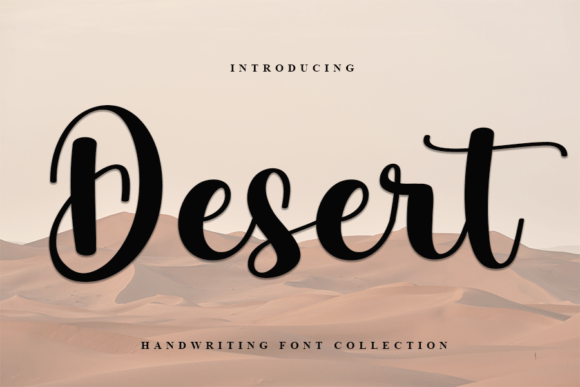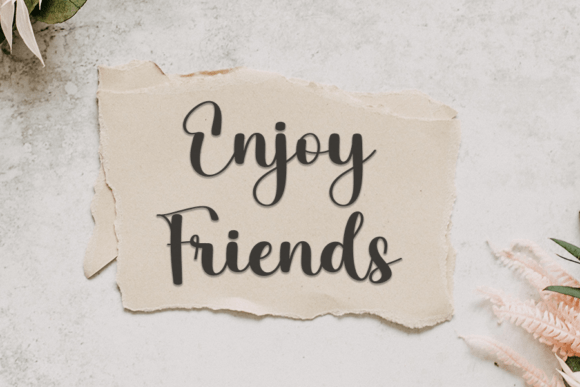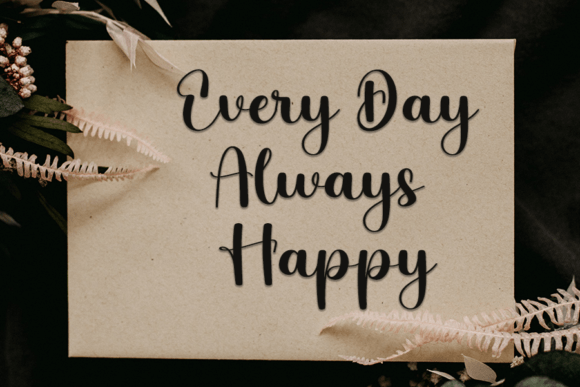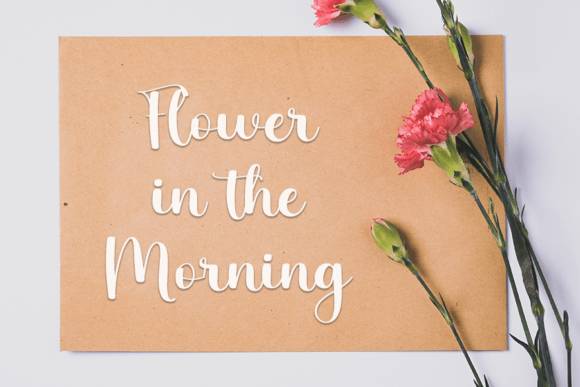
Desert Font
What Is Desert Font?
Desert is a delicate handwritten font designed to bring a cool, unique character to your work. Each letter has been thoughtfully crafted to balance elegance and readability, making this font stand out in any context.
Desert is incredibly versatile and adapts easily to many types of projects:
✅ Letters & Invitations: Perfect for adding a refined, personal touch to wedding invites, event announcements, and thank-you cards.
✅ Food Product Labels: Its clean, organic style suits handmade or artisanal products beautifully.
✅ Titles & Headlines: Use Desert to create captivating headers that grab attention without sacrificing clarity.
✅ Branding & Packaging: Elevate your brand image with a handwritten look that feels both premium and authentic.
Whether your design is digital or print, Desert helps it feel unique and memorable.
Why Choose Desert Font?
Desert was crafted with attention to every curve and connection, resulting in smooth strokes and balanced spacing. This font offers a natural, handwritten style that feels elegant without being overly ornate.
Desert immediately elevates the visual appeal of any project. Simple layouts become eye-catching when combined with its delicate flow. The font’s clean letterforms keep text legible while adding a personal, handcrafted feel.
This balance of style and clarity makes it ideal for professional designers and hobbyists alike.
Desert is more than a handwritten font—it’s a way to add a sophisticated and organic feel to your designs. From wedding stationery and product labels to digital content and branding, Desert will make your projects stand out.